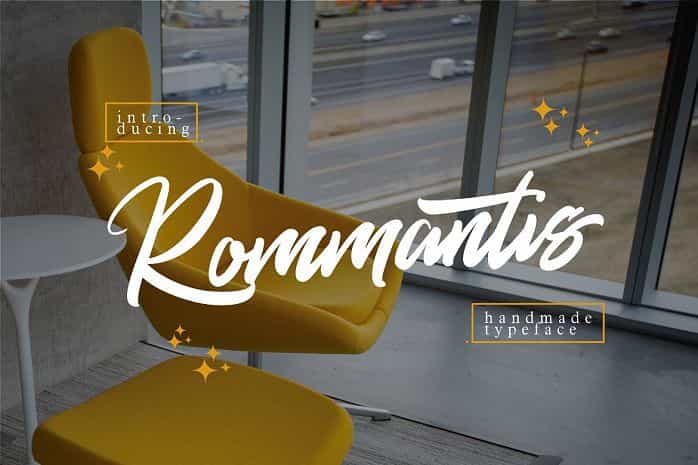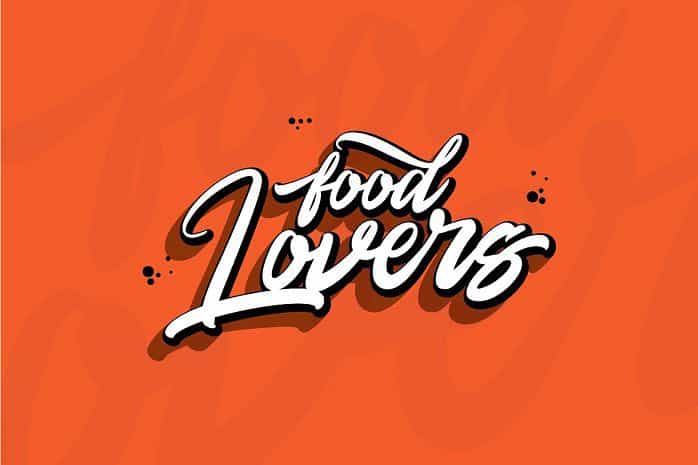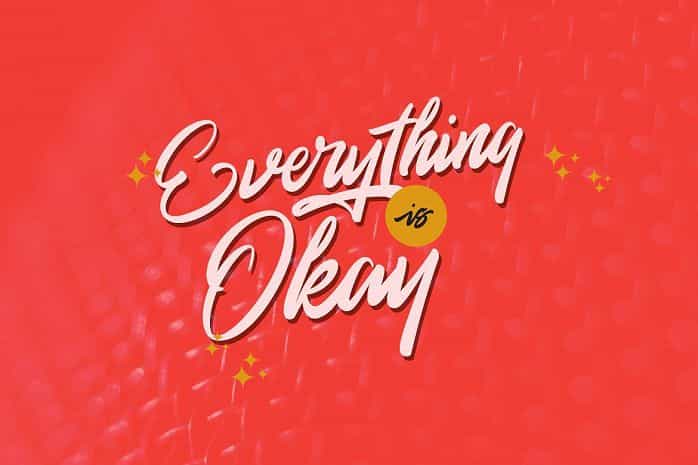
Introducing Rommantis Font. Rommantis – is the font that you can type with using your hands, every single letter has been carefully designed to make your text look perfect. With modern style this font will perfect for many different project ex: quotes, blog header, poster, wedding invitation and branding logo of a of fashion apparel or letter.